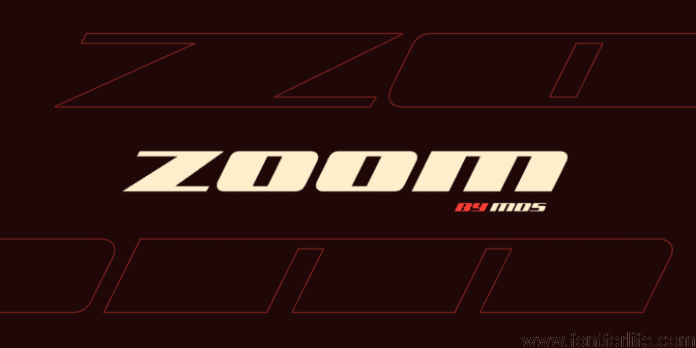
Zoom Font Family
Zoom Font Family is perfect for fast delivery service branding, high-speed internet advertising, quick-service restaurant logos, rapid transit signage, express shipping campaigns, speed-focused marketing, racing event graphics, instant service promotions, acceleration-themed designs, and dynamic motion-based advertising.
Zoom Font Family is exciting because it embodies lightning-fast speed and dynamic motion through streamlined letterforms that convey velocity, efficiency, and instant response with electrifying energy. This dynamically designed typeface combines aerodynamic aesthetics with contemporary functionality, making it perfect for brands that want to communicate speed, responsiveness, and cutting-edge performance that captures the essence of modern fast-paced living.
The Zoom Font Family includes multiple weights with speed-inspired character styling, featuring aerodynamic design elements and velocity-focused variations. The font showcases fast-motion design details, acceleration-optimized proportions, and dynamic character characteristics that create a comprehensive typographic system for speed-related and performance-oriented brand applications.
The velocity sophistication of Zoom Font Family makes it an essential tool for delivery companies, technology firms, and speed-focused service providers that need typography capable of communicating instant response and rapid performance. The font's fast character helps establish immediate associations with efficiency, quick delivery, and cutting-edge speed that appeal to time-conscious consumers seeking immediate results and fast solutions.
Express delivery services, high-speed internet providers, and rapid-response businesses consistently choose Zoom Font Family for its ability to convey lightning speed and dynamic efficiency through typography. The font excels in applications where establishing speed credibility and performance appeal are essential to brand positioning, making it particularly effective for logistics services, technology solutions, and express service brands targeting efficiency-focused consumers.
This font's comprehensive character set includes speed-inspired letterforms, velocity numerals, dynamic punctuation marks, and acceleration symbols that support authentic fast-motion typography composition. The consistent speed styling maintains the velocity theme throughout all characters while ensuring professional readability across all speed and performance design projects requiring Zoom Font Family Free Download functionality.